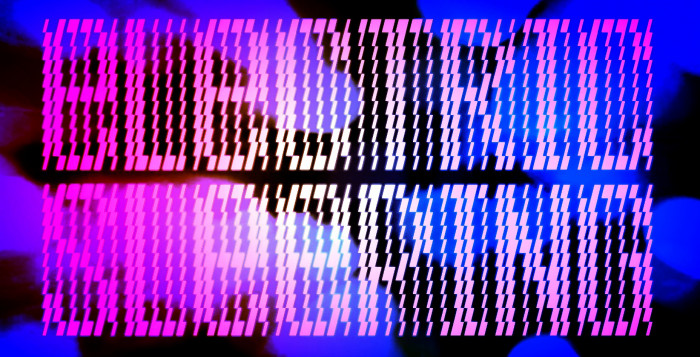
Another unicase with alternates and also an optical experiment (this time based in a certain way on some works by the great Philippe Apeloig). Optional filled space placed in the "^" glyph.
Auch, your eyes!
Congrats on yet another killer experiment mate!
Another succesful optical experiment. Nice samples.